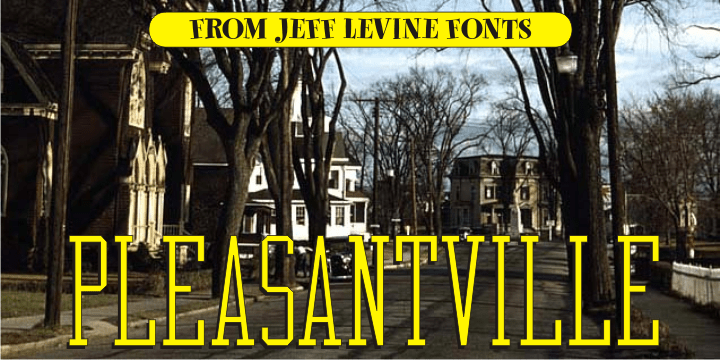
Pleasantville
Pleasantville JNL is a condensed slab serif font with angled corners emulating a popular style of lettering most prevalent in the 1920s. Modeled from Cornfield JNL (which in turn was based on a vintage popcorn box's logo), the letters were given a more standardized treatment in form and balance.